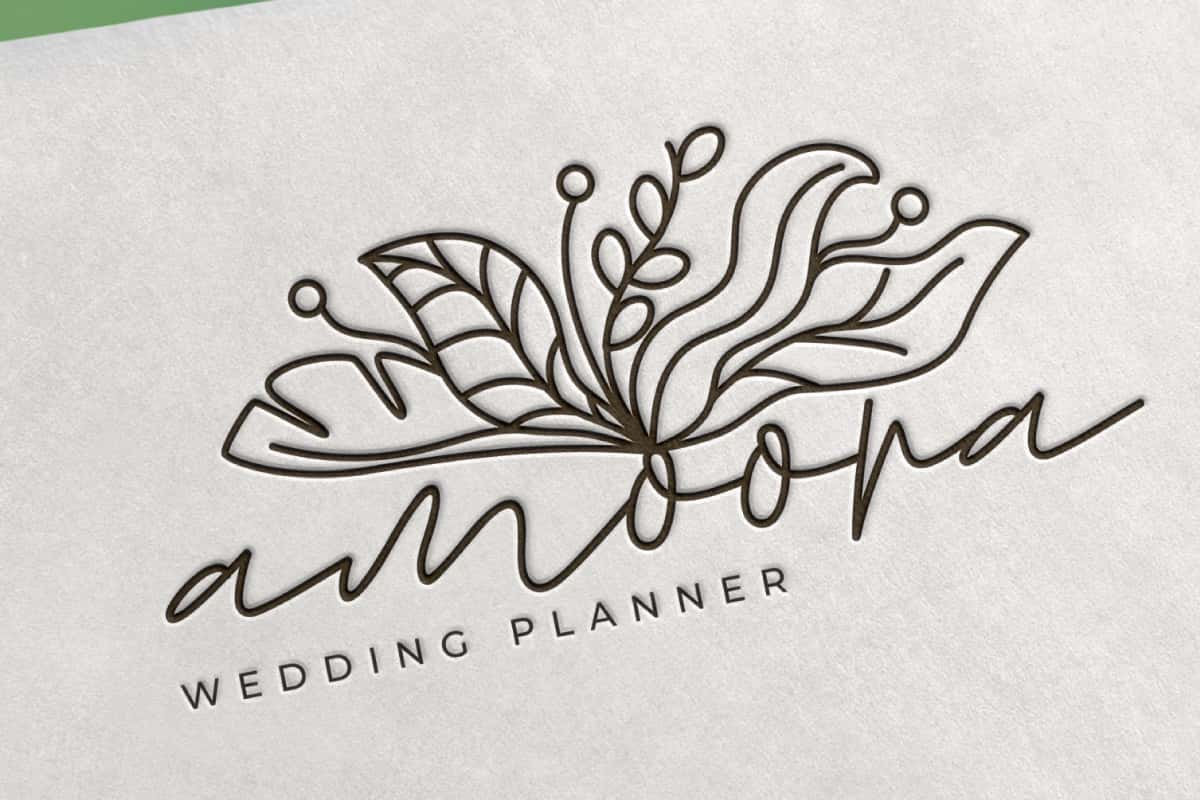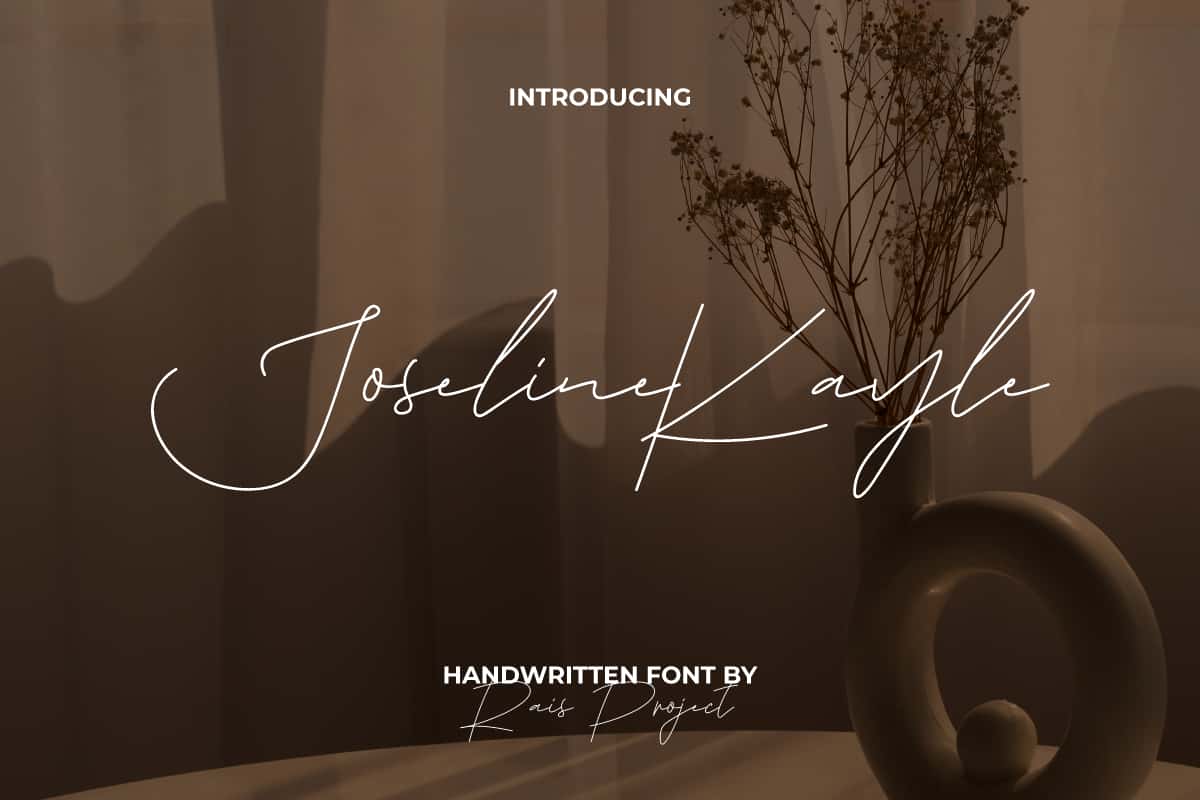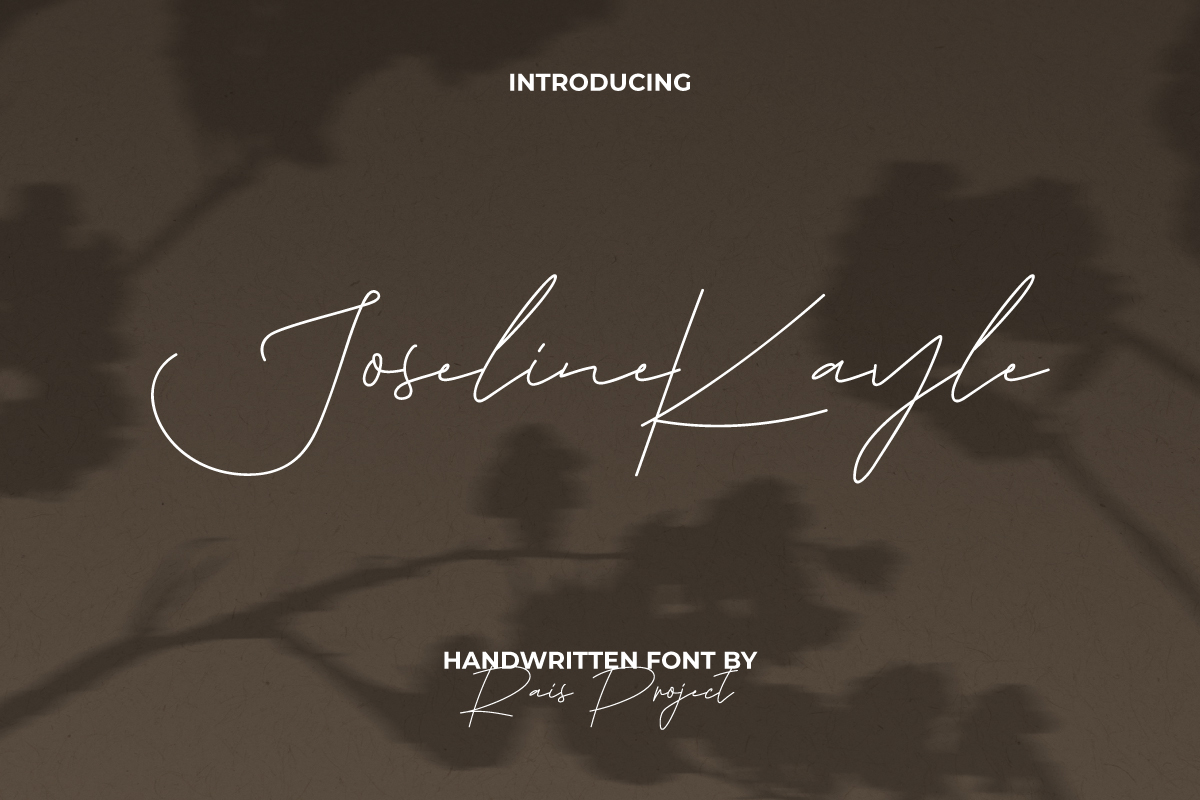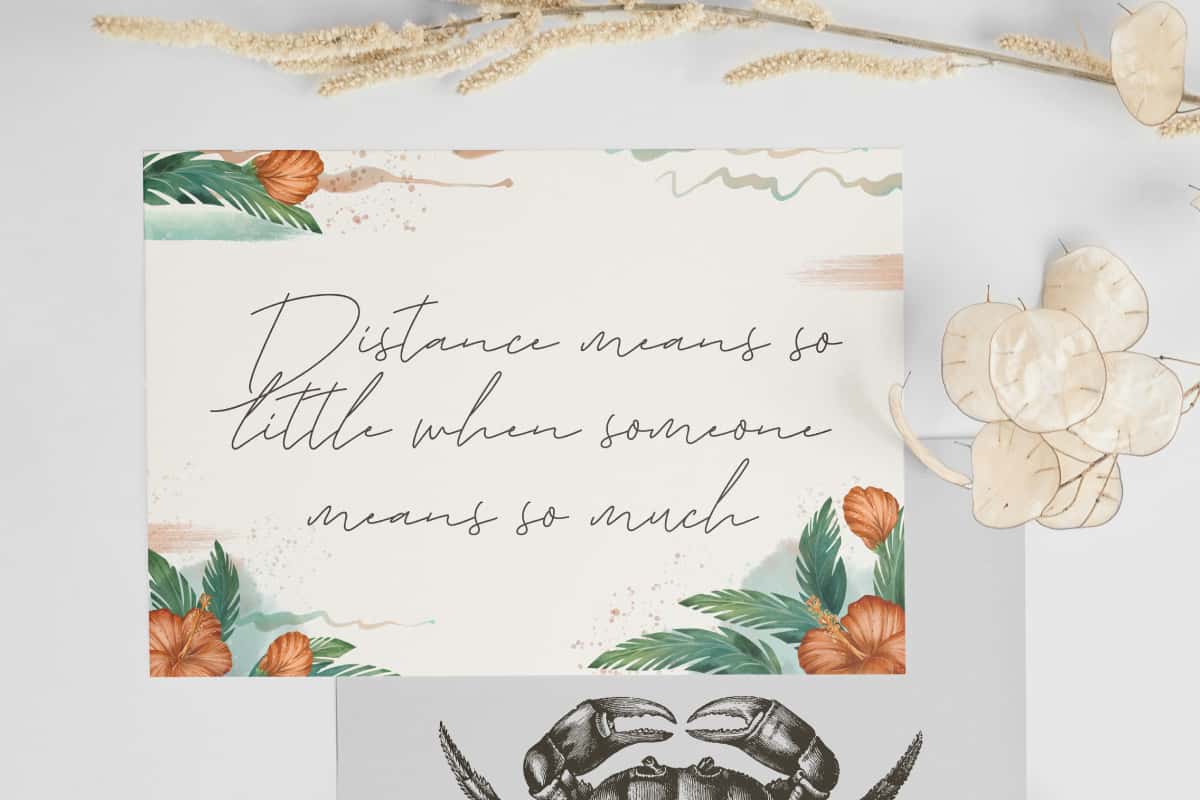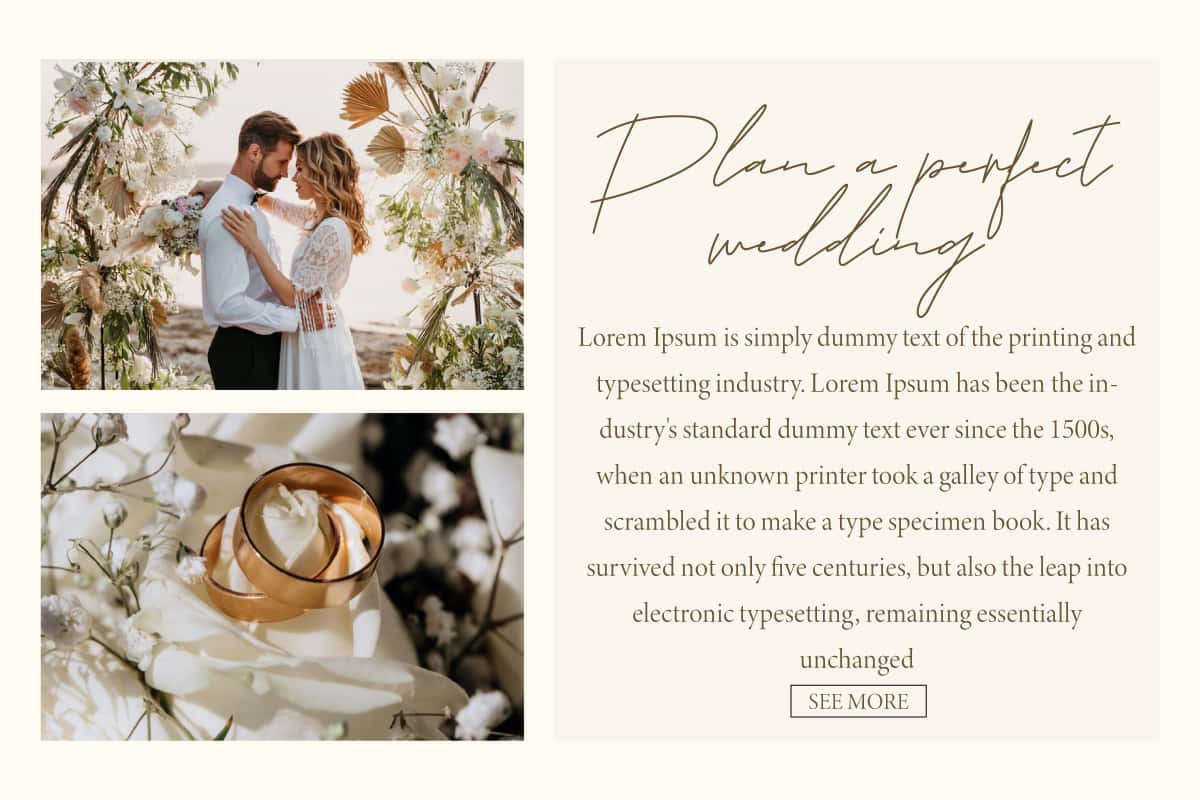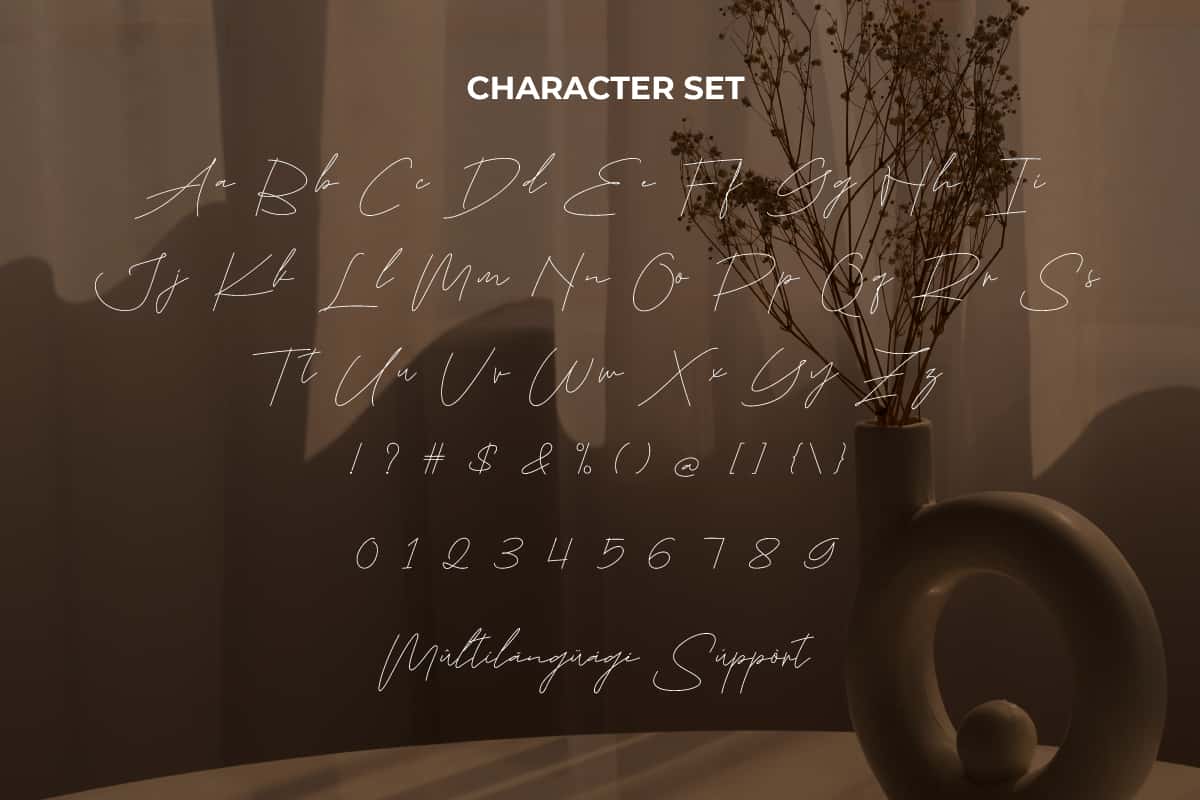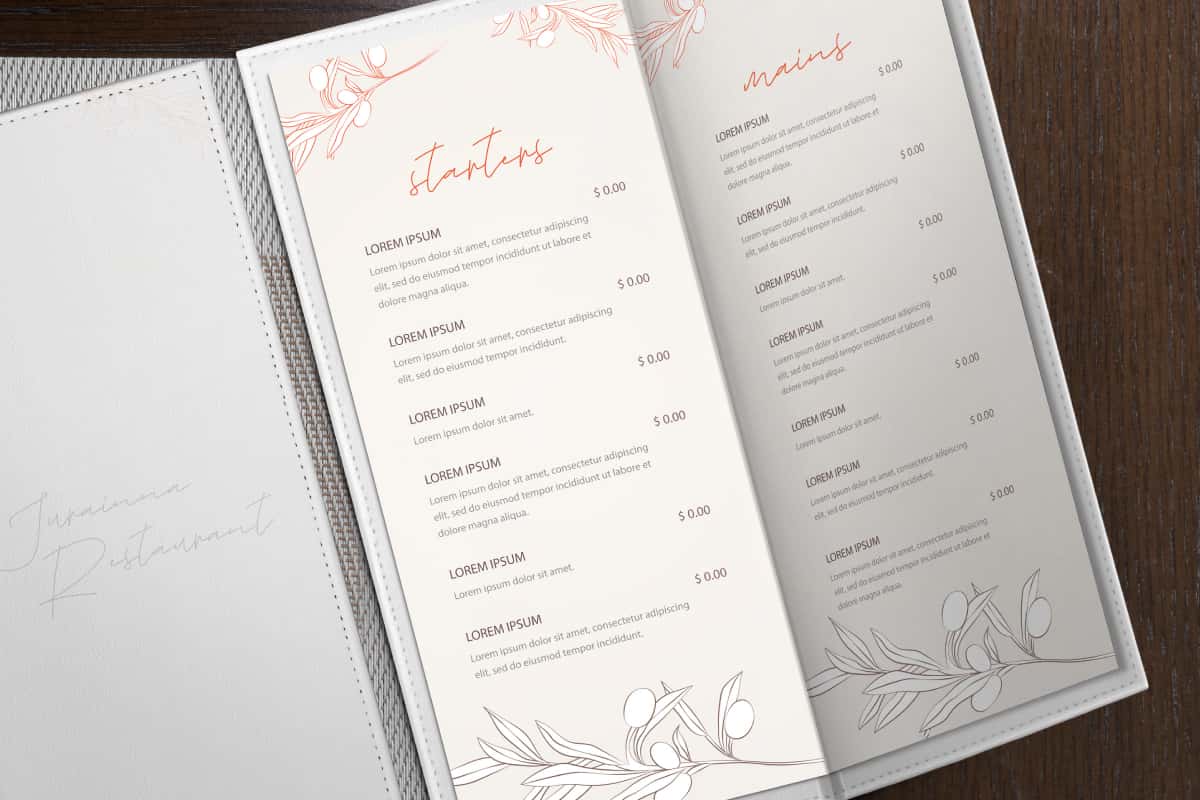
Joseline Kayle Font
Joseline Kayle Font is a neat and beautiful handwritten font. If you’re looking for something that easy to complete an awesome project, this font can help and give you the fineness!
Joseline Kayle Font is a lovely script font with handwritten style. This is neat and beautiful handwritten font has sleek and neat lines that wave beautifully and still easy to read with small letters. Making it suitable for many industries, such as event or wedding organizer, beauty product, creative designer, fashion, florist, homeware, photography, printing, publishing, restaurant, writer, and more!
Joseline Kayle Font includes a full set of Uppercase and Lowercase Letters, Numerals, and large range of Punctuation. This font will beautify your projects with its exclusive look, such as invitation, brand image, catalog, label, menu, poster, product packaging, quote, stationery, title, website, etc.